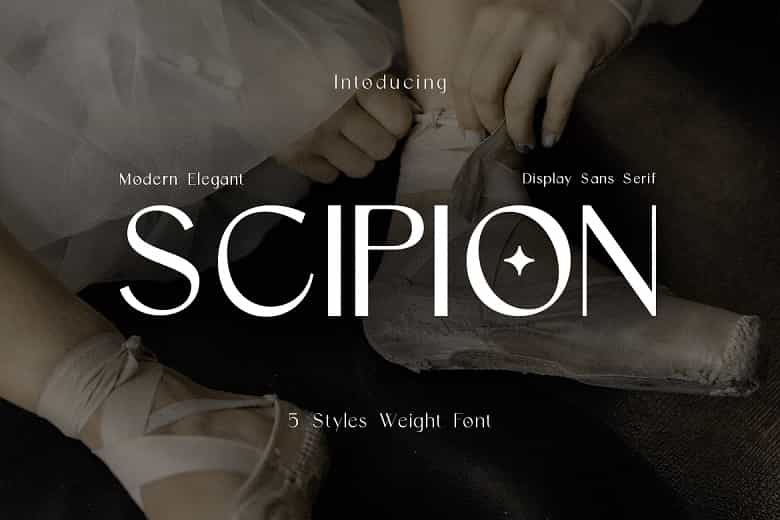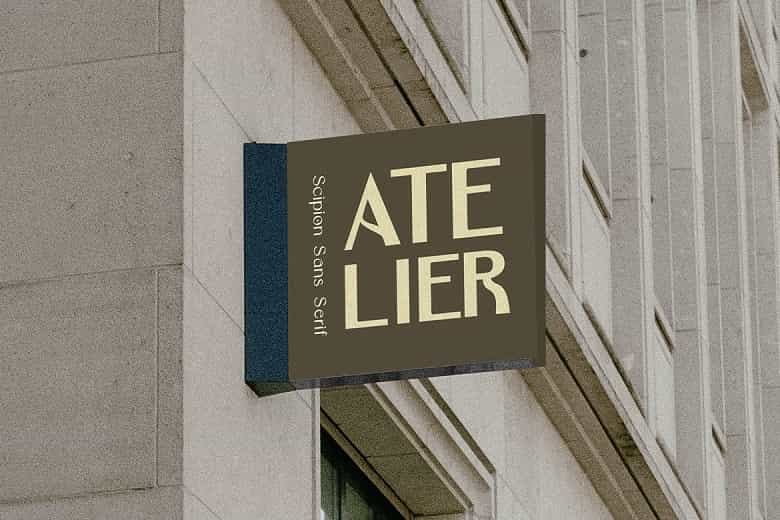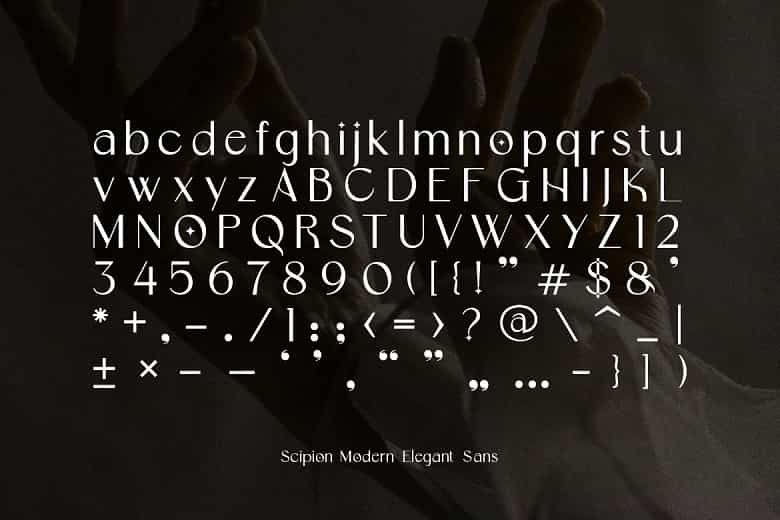
Scipion is a contemporary sans serif typeface that is equal parts sleek and classy, every stroke of the font speaks to a elegance that will enhance your projects.